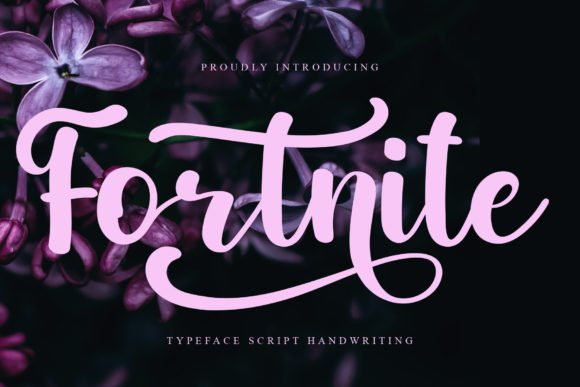
Unleash Your Creativity with the Sweetest Font in Town
Have you ever been in the middle of a creative project, and suddenly, the perfect font pops into your head? It’s like a ray of sunshine on a cloudy day – it sets everything off and makes your design shine. For designers, finding the right font can be the difference between a good design and a great one. And, trust me, I’ve been there too!
That’s why I’m super excited to introduce you to the Fortnite Font – a modern calligraphy typeface that’s as sweet as it gets. This font is perfect for designers who want to add a touch of romance and whimsy to their projects. With its PUA-encoded characters, you’ll have access to all the amazing glyphs and ligatures you need to create stunning designs. Whether you’re working on a wedding invitation, a branding project, or a social media campaign, the Fortnite Font is sure to be a hit.
Fortnite Font Key Features
Fortnite Font Review